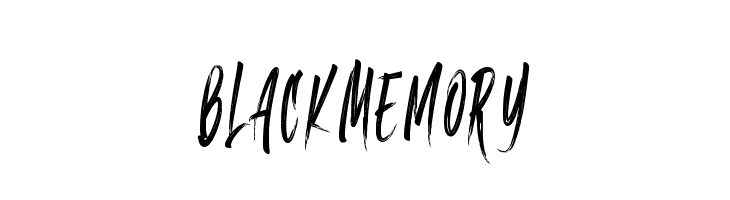
A casual and elegant handwritten font with smooth, flowing lines.
An elegant monogram font with decorative wreath encasements and classic serif elements.
An elegant and versatile font with flowing curves and intricate details.
A modern, italic, and condensed font with a sleek and dynamic appearance.
An elegant script font with flowing cursive strokes and refined flourishes.
A bold, condensed font with a strong, industrial style.
A playful, hand-drawn outlined font with an oblique style.
A modern, handwritten-style font with elegant, flowing strokes.
A playful, casual handwritten font with dynamic curves and varying stroke widths.
An elegant, light, and italicized typeface with high contrast and graceful curves.
设计师偏爱 Autumn Beautiful, Marliana Monogram, Dusharnbi, Ampero-LightItalic and Mortyni-Regular,因为其造型干净、适用范围广—— 从品牌识别到落地页、海报都能胜任。